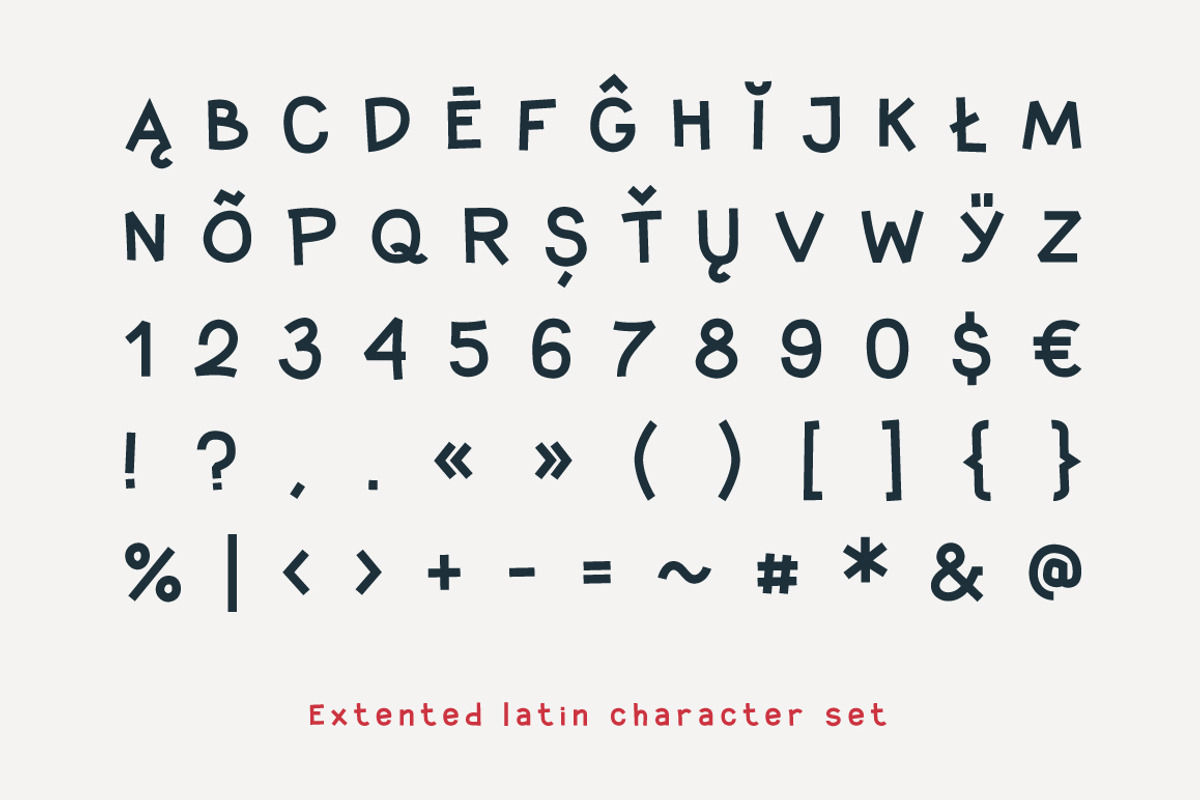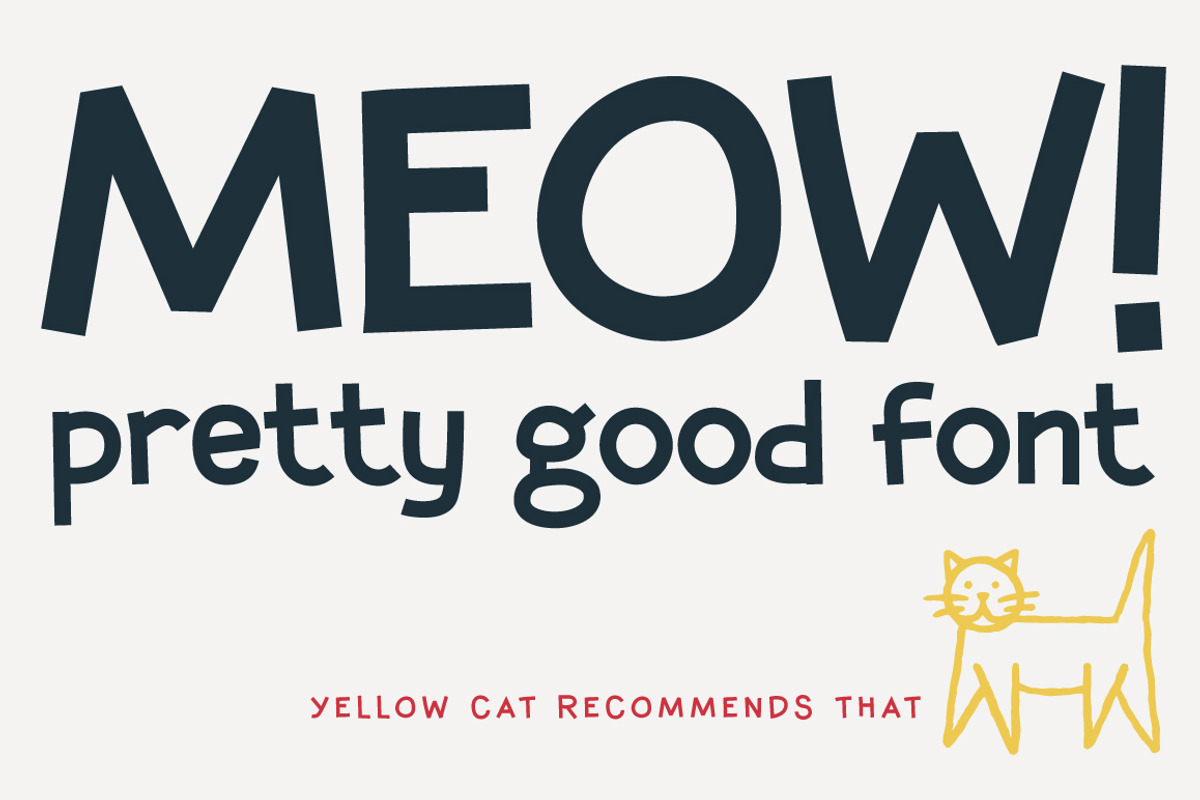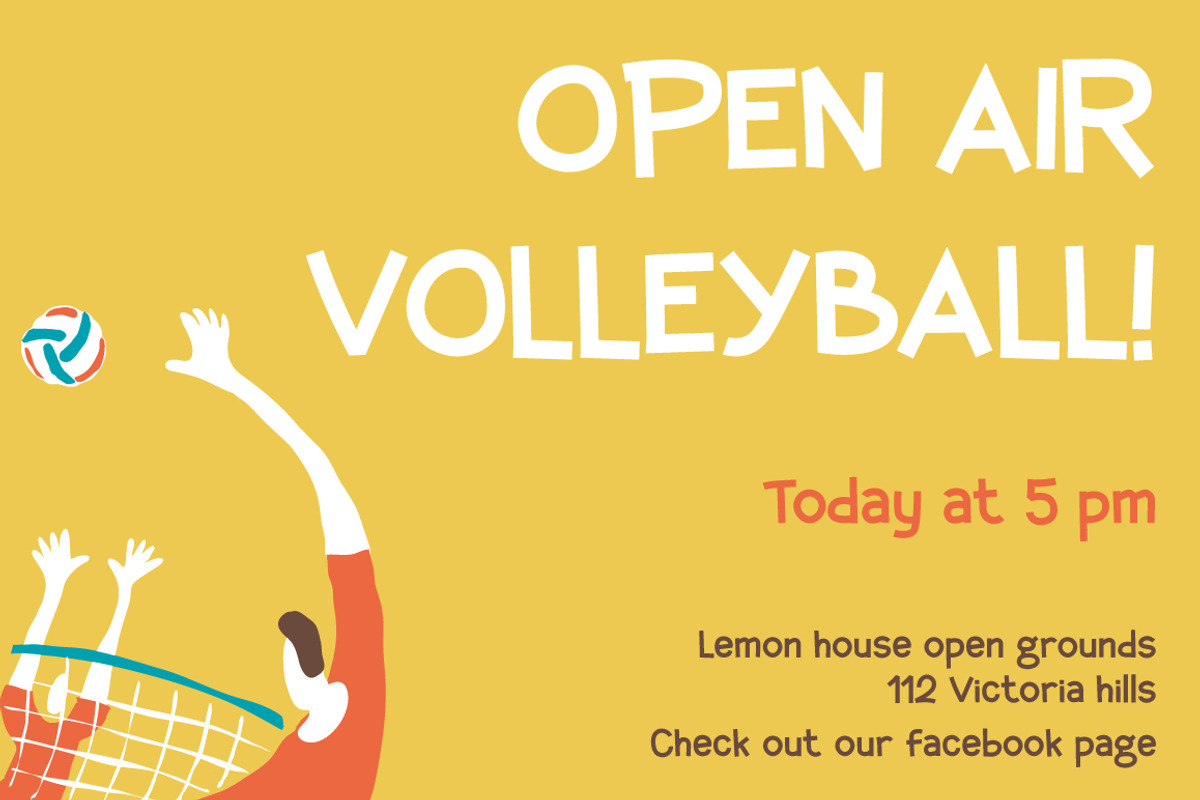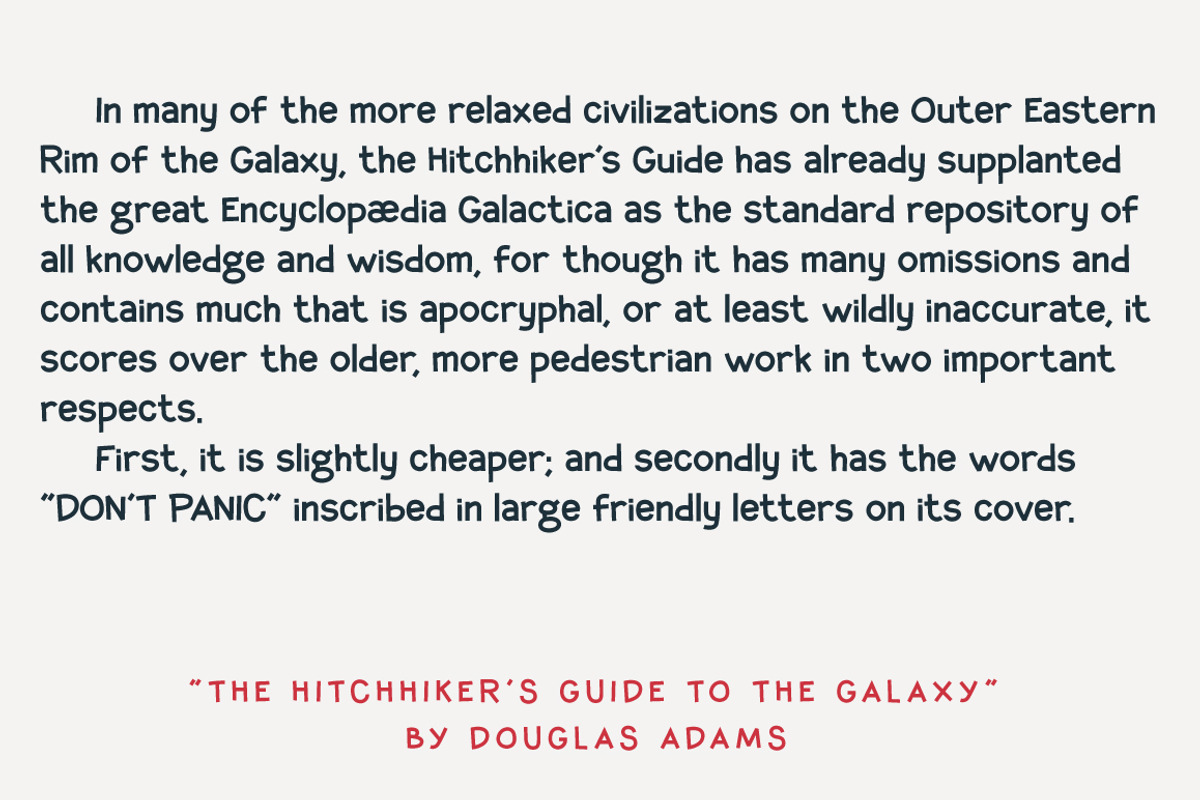
Jeeks Font
Jeeks is a simple hand made font, good for children and comic books, cartoons, posters and games.
Extented latin character set
Numerals, regular ligatures and basic punctuations.
Jeeks Font by Youhhou fits naturally into Branding, posters, packaging, typography.